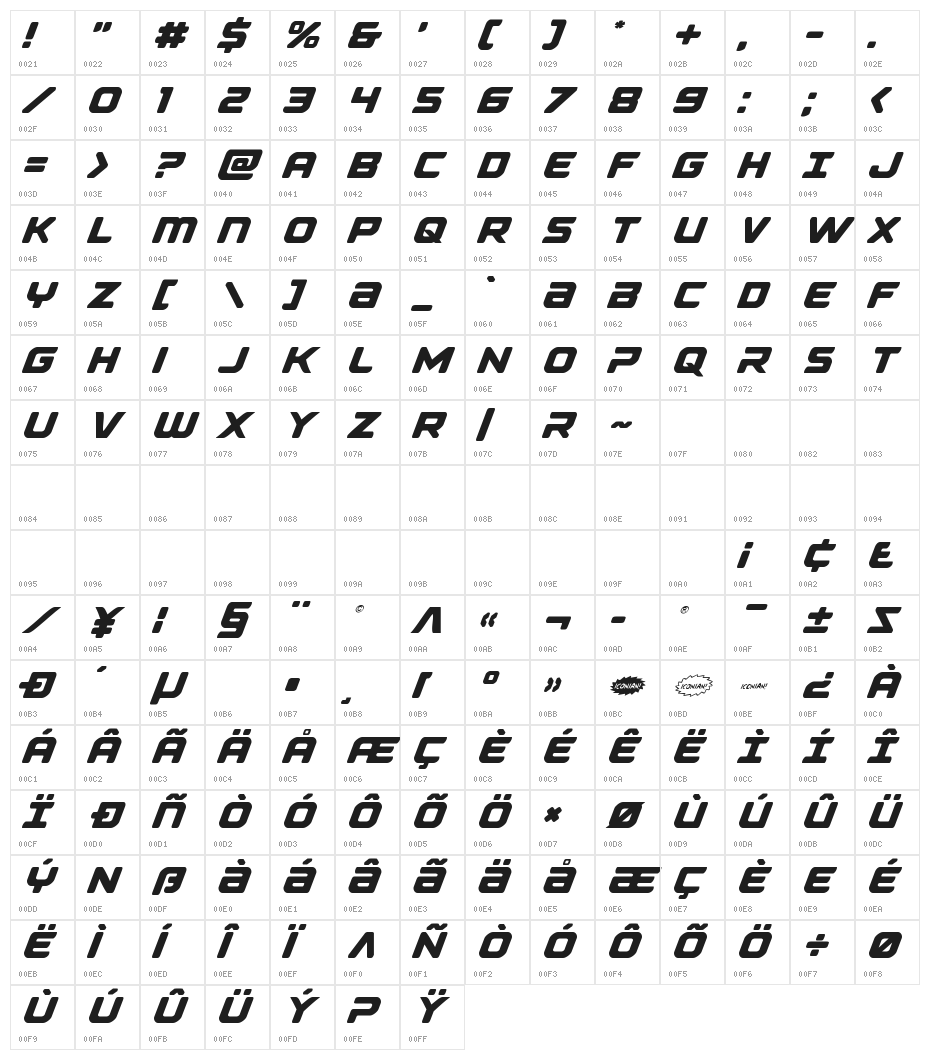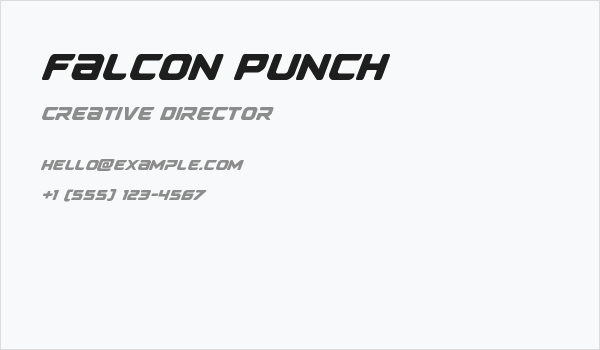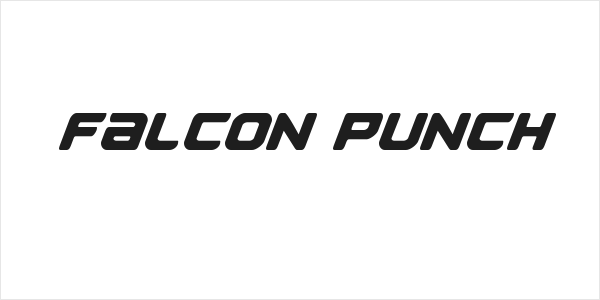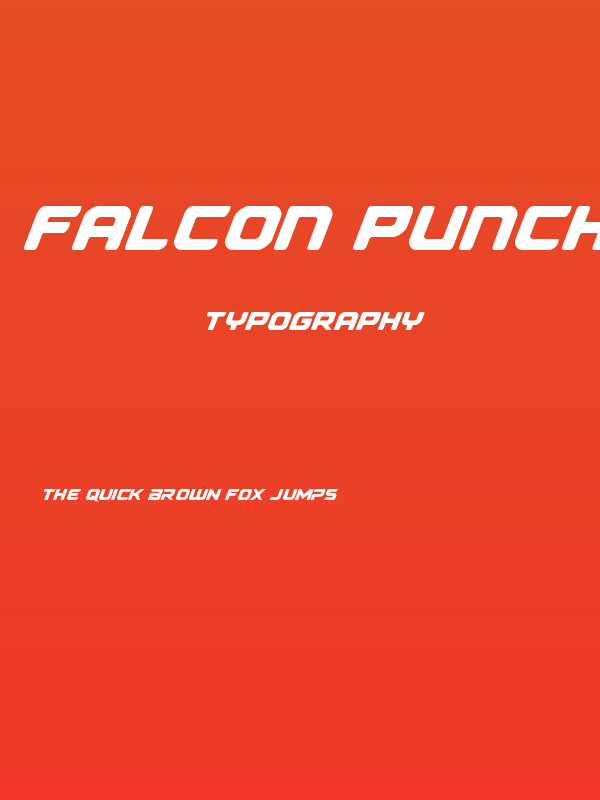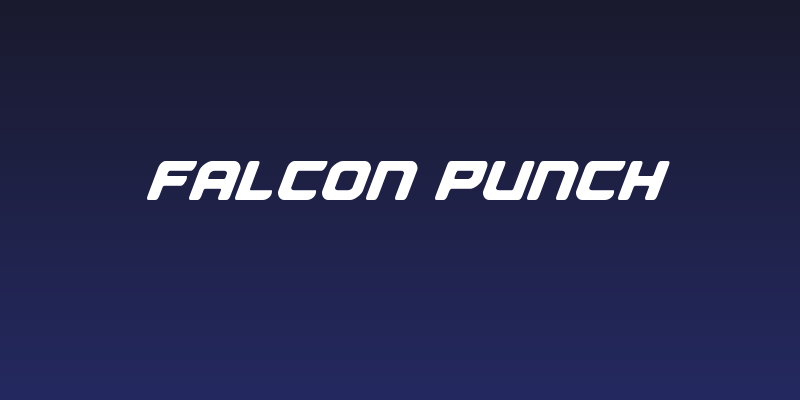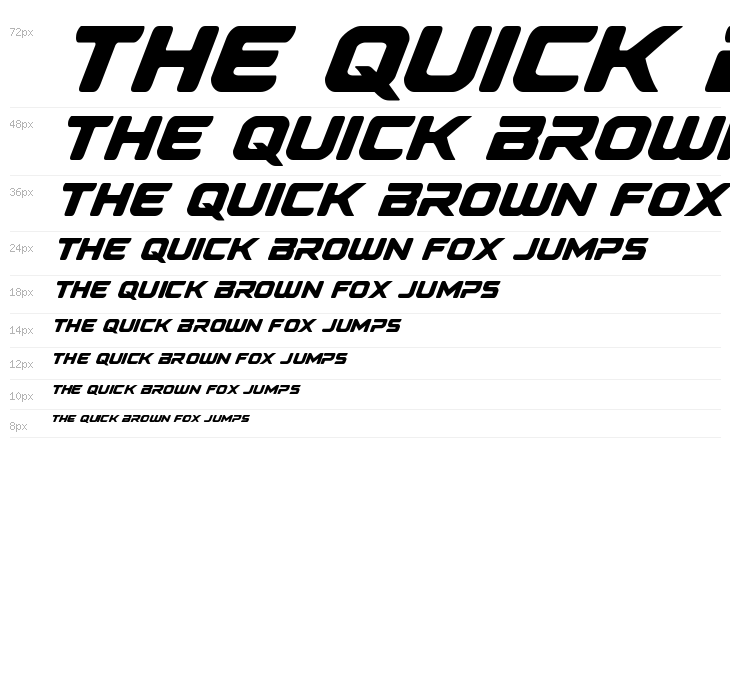
Falcon Punch Font
Falcon Punch Description
This font features a bold and dynamic style with a futuristic flair. The characters are slightly italicized, giving a sense of motion and speed. The strokes are thick and consistent, providing a strong visual impact. The design includes rounded edges and a slightly condensed form, enhancing its modern and sleek appearance. The font is highly legible, making it suitable for various display purposes. Its unique style is both eye-catching and versatile, perfect for projects that require a bold statement.
Use CaseHeadlines, Logos, Display
Proposed ProjectsIdeal for sports branding, video game titles, automotive logos, and tech-related advertisements.